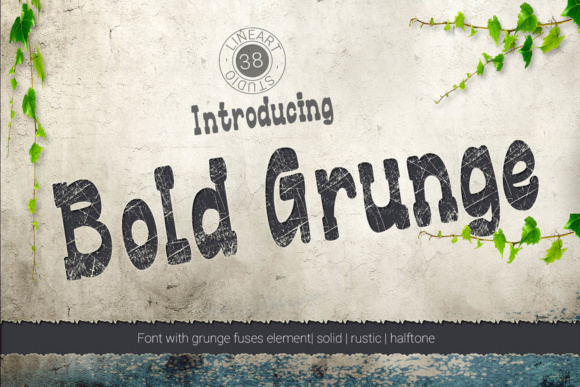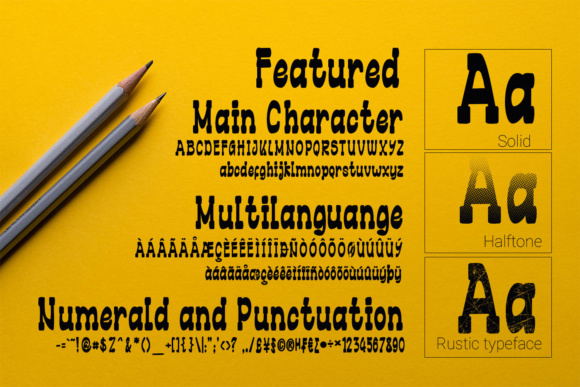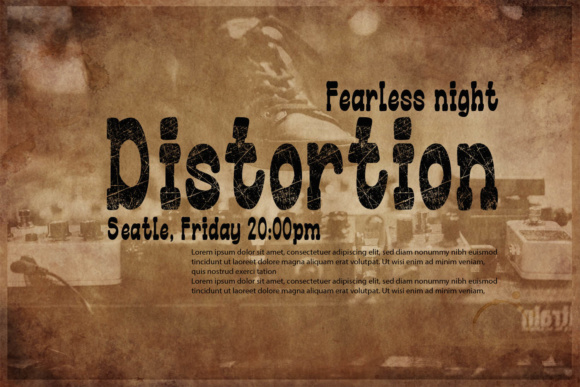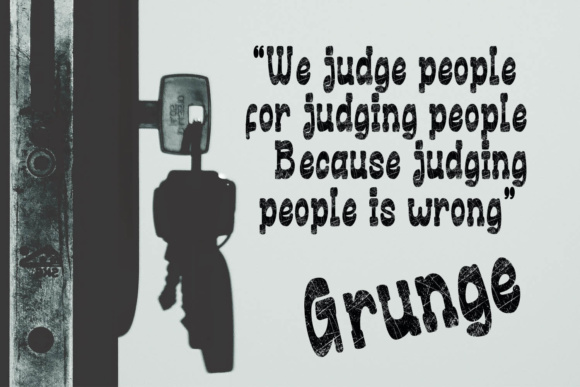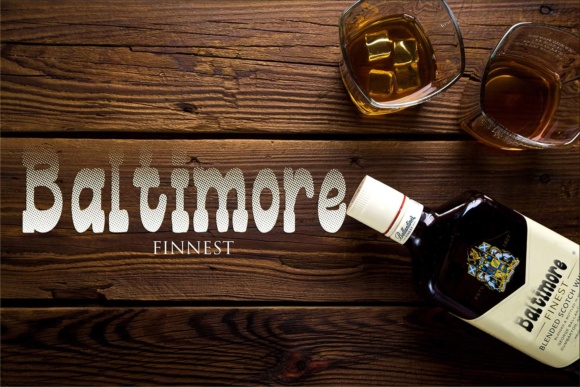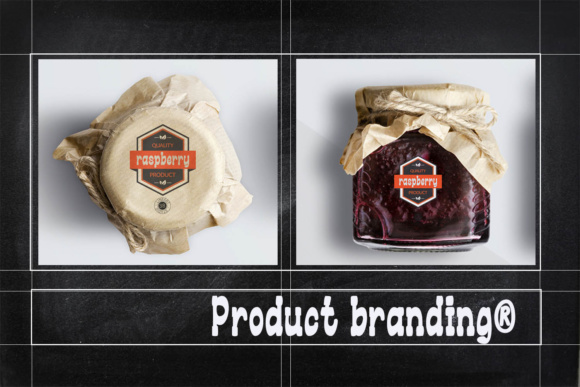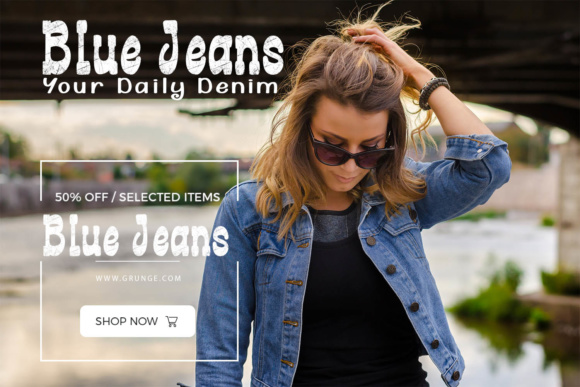
Bold Grunge Font
About Bold Grunge Font
The Bold Grunge is a highly thought out typeface with a strong texture. It’s urban and old-fashion, with a shabby, worn and stained look to complement the extraordinary grunge design. It comes in a regular, halftone and rustic version which makes it perfect for all sorts of design.